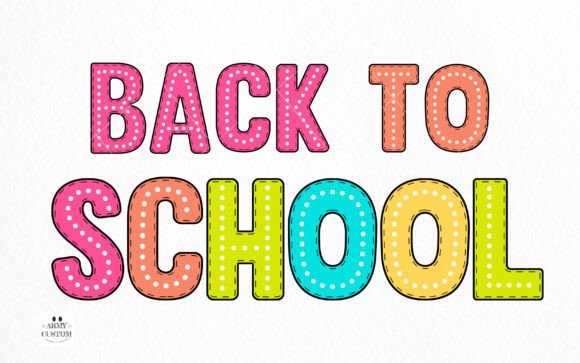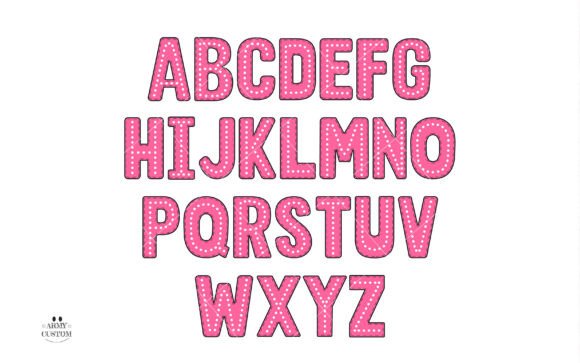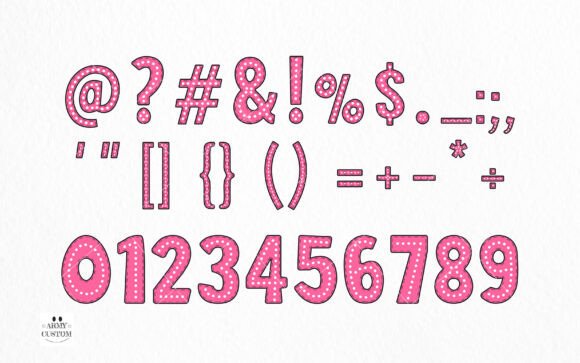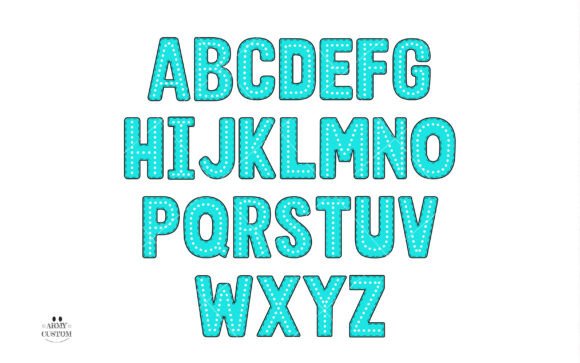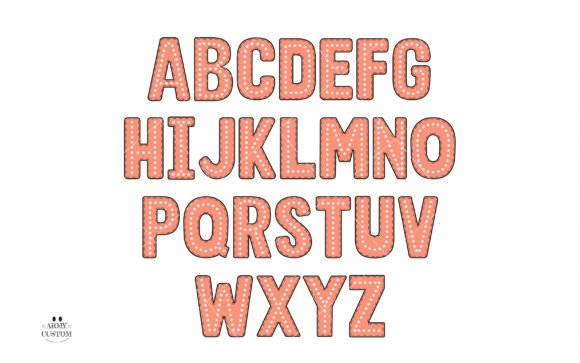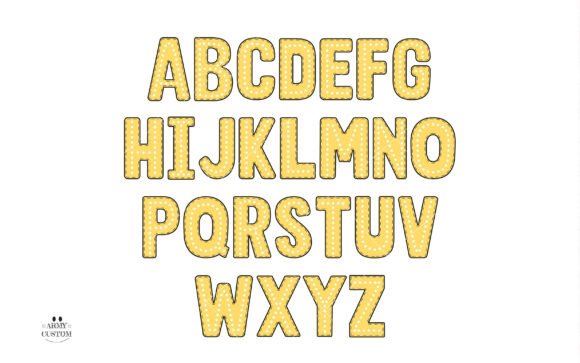
Dotted Back to School Font: Add a Splash of Whimsy to Your Creativity
As the new academic year approaches, designers and crafters are on the lookout for fresh and exciting fonts to make their back-to-school projects stand out. If you’re searching for a font that embodies the perfect blend of playfulness and charm, look no further than the Dotted Rainbow font. In this article, we’ll introduce you to this delightful font, explore its features, and discuss how it can elevate your creative endeavors.
Introducing Dotted Rainbow Font
Imagine a font that combines the innocence of childhood with the vibrancy of a rainbow. The Dotted Rainbow font is precisely that – an enchanting mix of whimsy and color designed to infuse your projects with an element of joy and playfulness. This delightful color font is perfect for injecting charm into any cute-theme endeavor, painting a canvas of creativity that leaps off the page.
Key Features of Dotted Rainbow Font
- Whimsical Design: The Dotted Rainbow font boasts a unique, dotted design that adds a touch of playfulness to any project.
- Vibrant Colors: With a rainbow of colors at your disposal, you can create eye-catching and engaging designs that are sure to captivate your audience.
- Versatility: This font is ideal for a wide range of creative projects, from back-to-school materials to party decorations, and from digital content to craft projects.
- Ease of Use: The Dotted Rainbow font is easy to use and can be incorporated into various design software, making it accessible to designers of all skill levels.
Perfect for Back to School Projects
The Dotted Rainbow font is an excellent choice for back-to-school projects, including:
- Customized Stationery: Create colorful and fun stationery, such as notebooks, journals, and stickers, that kids will love.
- School Planners and Organizers: Design engaging school planners and organizers that help students stay on top of their assignments and deadlines.
- Educational Materials: Develop interactive and visually appealing educational materials, such as worksheets, activity sheets, and posters.
- DIY Crafts: Use the Dotted Rainbow font to create adorable DIY crafts, like party decorations, gift tags, and labels.
Why Choose Dotted Rainbow Font?
So, why should you choose the Dotted Rainbow font for your creative projects? Here are just a few reasons:
- Unique and Eye-Catching: The Dotted Rainbow font is sure to grab attention and make your projects stand out from the crowd.
- Fun and Playful: This font embodies the spirit of childhood and playfulness, making it perfect for projects aimed at kids or those who are young at heart.
- Easy to Use: The Dotted Rainbow font is easy to incorporate into your designs, saving you time and effort.
- Versatile: This font can be used for a wide range of projects, from digital content to print materials.
In conclusion, the Dotted Rainbow font is an excellent addition to any designer’s or crafter’s toolkit. Its unique blend of whimsy and vibrancy makes it perfect for back-to-school projects, party decorations, and a wide range of creative endeavors. With its ease of use, versatility, and eye-catching design, the Dotted Rainbow font is sure to inspire your creativity and bring a splash of fun to your projects. So, harness the power of Dotted Rainbow and let your imagination take flight!